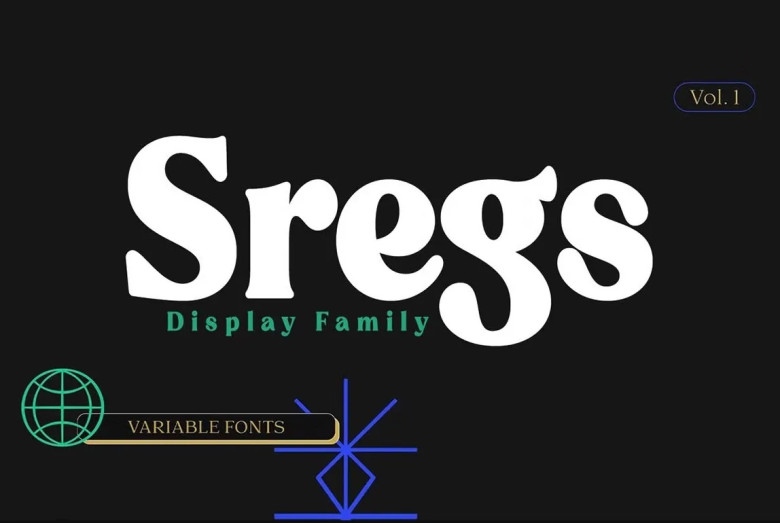
Sregs Font
Sregs is an open screen serif font family reminiscent of popular 1960s and 1980s typography, featuring modern touches. Reflexive serifs with soft transitions ensure letters are easy to read and identify; 7 weight font designs (Standard as well as Italic) plus two font formats provide plenty of choices so you can find just the right style for any project.
Branding and large-scale printing requires text that has various uses in branding and large scale printing applications such as billboards, signboards, headlines and titles to short paragraphs and book titles written on them, with taglines for book pages/taglines/websites/applications/logos that incorporate letter designs within text – in other words modifying it with design features. Different letters can be combined together to form different designs within text itself.
Sregs Serif Font